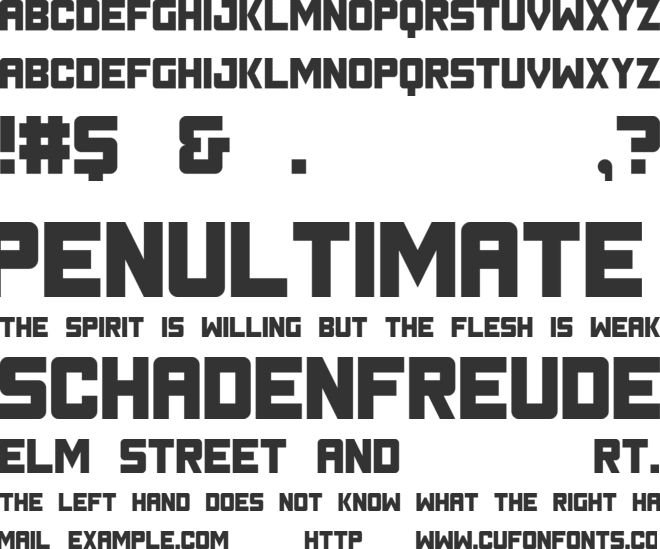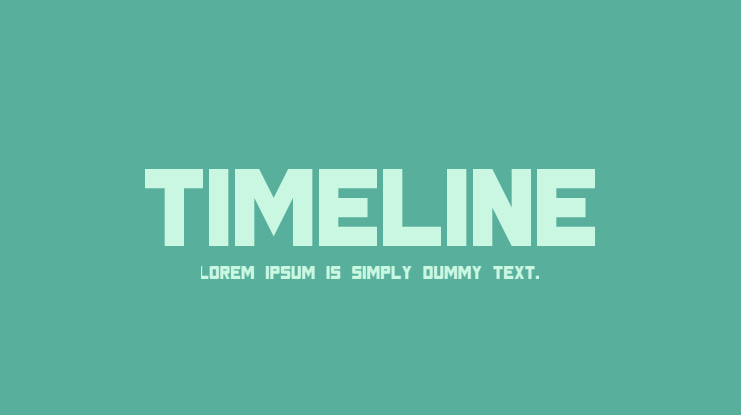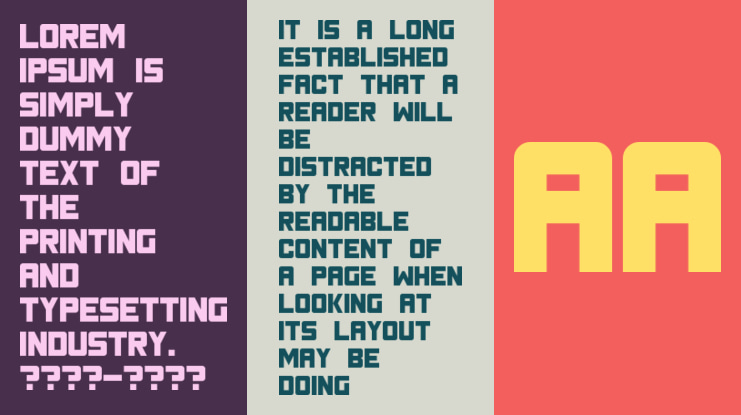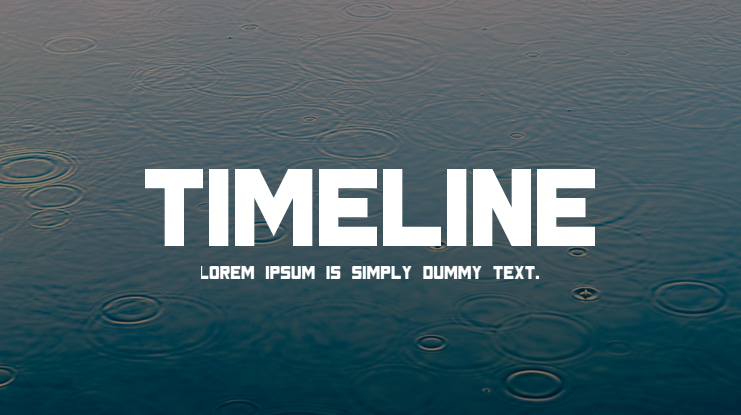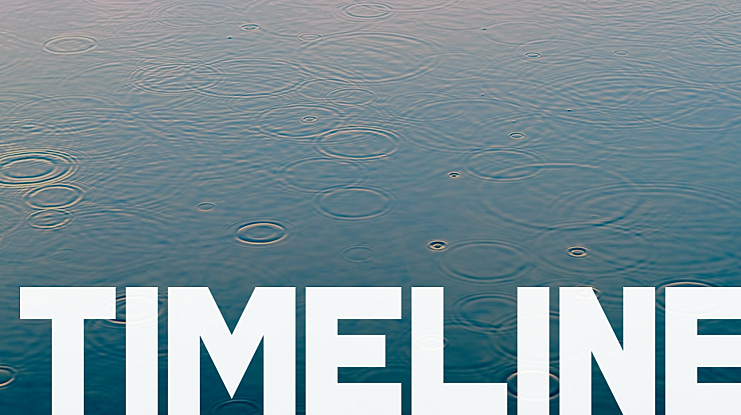
Timeline Font
A 100 percent free Sans Serif font. Complete with capitals and basic punctuation. Updates soon to come. Update 11/13/14- All curves changed slightly to make a bolder, less rounded look.